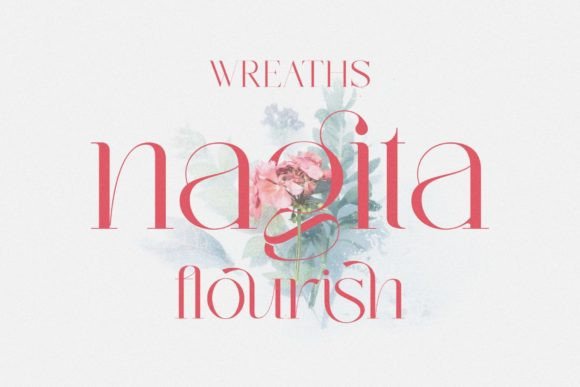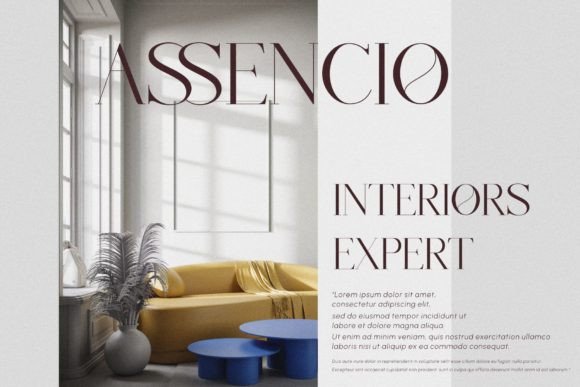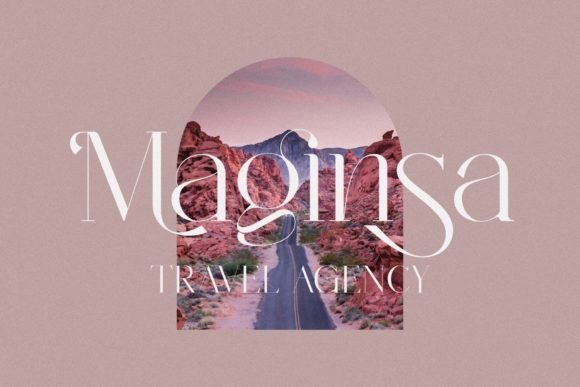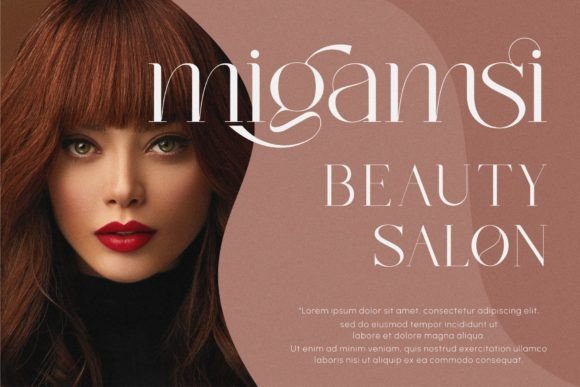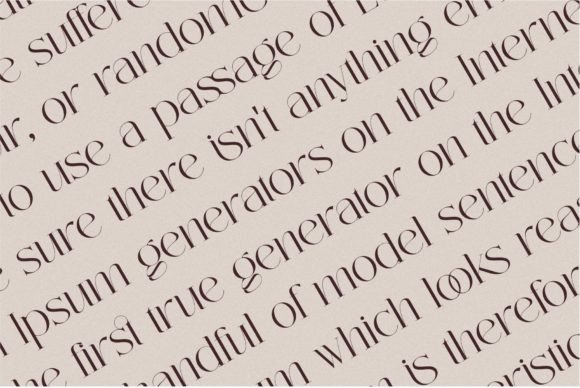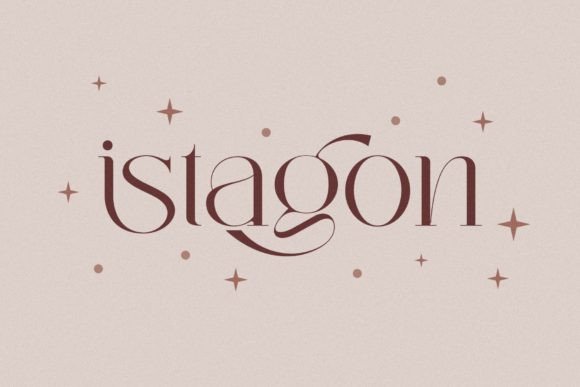
Introduction to Quinsi Font
Have you ever found yourself staring at a blank canvas, waiting for the perfect font to bring your creative project to life? That’s exactly what happened to me when I stumbled upon the Quinsi Font. Its elegant blend of classic elements and contemporary touches immediately caught my eye, and I knew I had to learn more about it.
The Quinsi Font is more than just a pretty face – it’s a valuable resource for designers looking to add a touch of sophistication to their work. With its smooth lines, gentle curves, and modern touches, this font is perfect for creating a harmonious balance of elegance, softness, and modernity in any design project.
Not only does the Quinsi Font offer a high-quality design resource, but it’s also PUA encoded, making it easy to access all the amazing glyphs and ligatures. Whether you’re working on a personal project or a commercial design, this font is sure to elevate your work to the next level.
Key Features of Quinsi Font
- Unique, modern design aesthetic that can add a touch of sophistication to any creative project.
Honest Review: Quinsi Font
I recently stumbled upon the Quinsi Font and was excited to give it a try. As a designer, I’m always on the lookout for high-quality design resources to elevate my creative projects. The Quinsi Font did not disappoint.
What works well: ✨ The Quinsi Font has a unique and modern aesthetic that’s perfect for a variety of design applications. I particularly love the transparent background, which makes it easy to use in different design scenarios. The font is also super versatile, with a range of weights and styles to choose from.
Here are some of the key features I appreciate about the Quinsi Font:
- High quality: The font is well-designed and looks great on screen.
- Various weights and styles: The font comes in a range of weights and styles, giving designers plenty of options to choose from.
Limitations: ⚠️ While I love the Quinsi Font, I do have a few minor complaints. The font could benefit from more language support, and some of the characters can be a bit tricky to use in certain design scenarios.
Overall impression: I’m really impressed with the Quinsi Font and would definitely recommend it to other designers. With its unique aesthetic, transparent background, and high-quality design, it’s a great addition to any design resource library.
For the best results, use Quinsi Font in combination with high-quality images and graphics. Experiment with different font sizes and styles to create visually appealing designs. You can also use Quinsi Font to create custom graphics for your brand, such as a logo or icon.
Quinsi Font is perfect for creating custom graphics for your social media, blog, or website. It’s also great for adding a touch of elegance to your presentations or documents. With its transparent background, Quinsi Font is ideal for overlaying text on images.